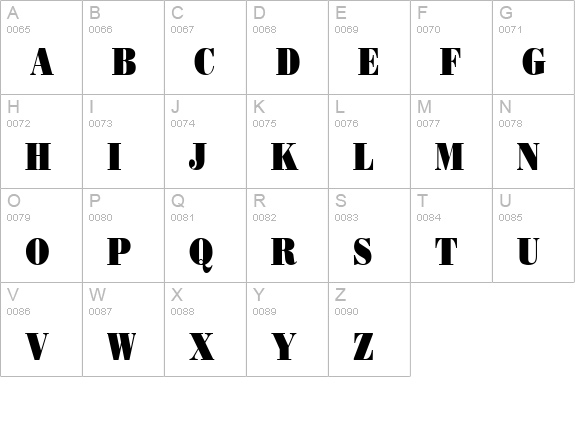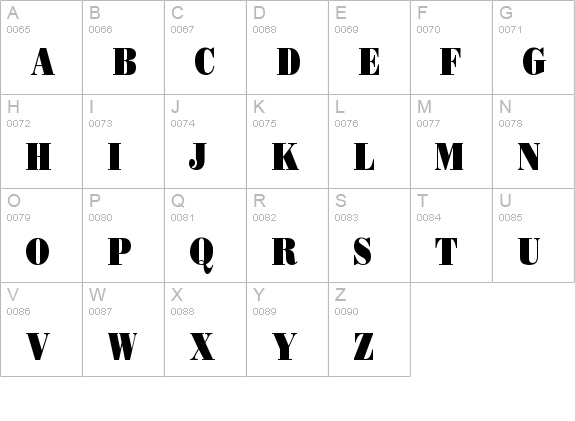
Beau Condensed Normal Font Details
Beau Condensed Normal is the standard, neutral, condensed-width variant in the Beau typeface family \xE2\x80\x94 well suited to general body text, paragraphs, and standard typographic work.
Beau Condensed Normal font is a sleek and modern typeface that exudes elegance and sophistication. With its clean lines and well-balanced proportions, this font is perfect for a wide range of design projects, from branding to editorial design. The condensed style adds a touch of contemporary flair, making it versatile for both display and body text. Best of all, Beau Condensed Normal font is available for free download at FontsMarket.com. Whether you're a designer looking to add a touch of class to your projects or a business owner seeking a refined font for your branding, Beau Condensed Normal font is sure to impress. Download it today and elevate your designs with this stylish and timeless typeface.